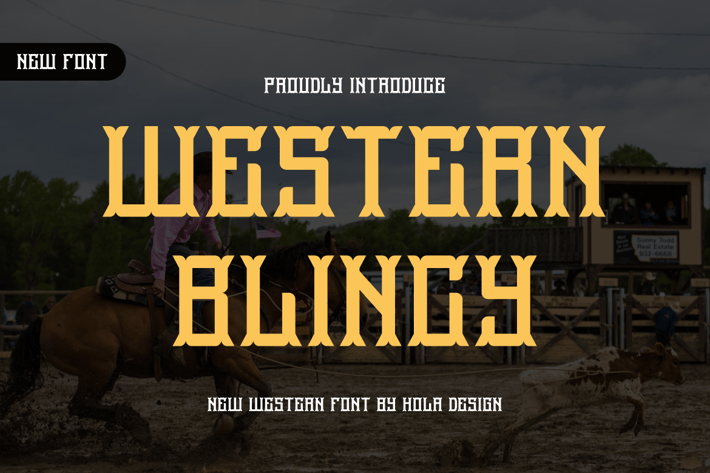
Western Blincy - Serif Font
Western Blincy Font is unique . Ready to use for your design like labeling, movie sceen, poster, movie title, gigs, album covers, logos, and much more.